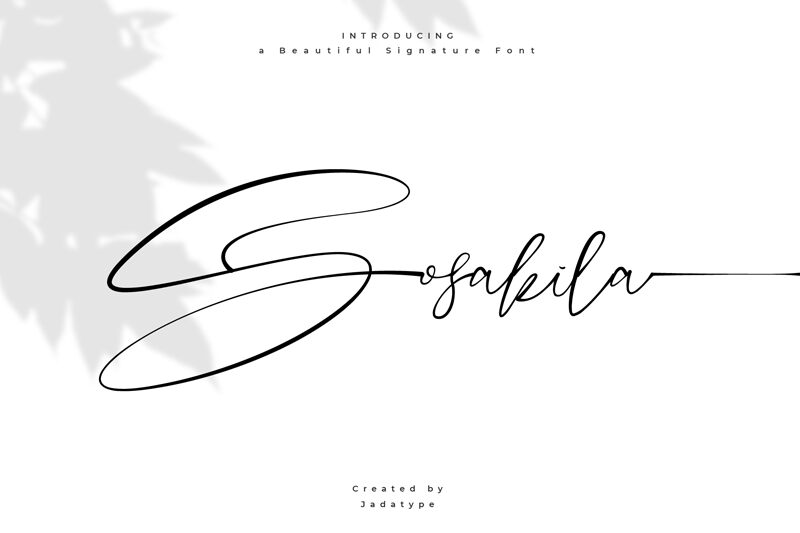
Sosakila
Sosakila font is a light handwritten wonder by Jadatype, integrating elegance into every project. Flowing and graceful with an artistic flair, the font’s signature-inspired design has both a sophisticated and contemporary appeal. Every stroke communicates expressive visuals that make branding projects stand out effortlessly. A seamless mixture of classic ink pen handwriting with modern digital tools makes it perfect for various designs.